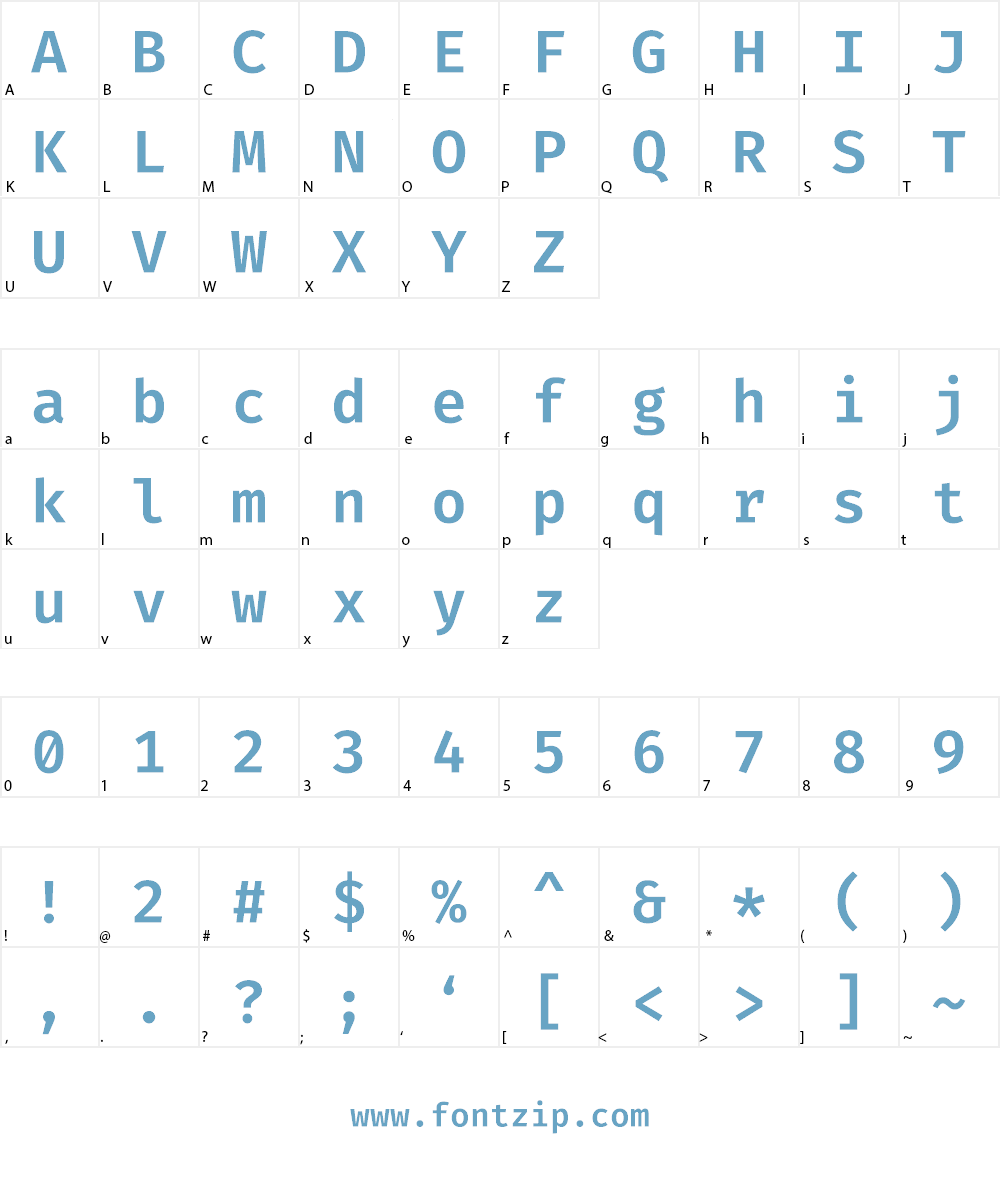
Consolate Elf is a Japanese sans-serif Monospaced font made by combining Fira Code and M Outline Fonts.
The font's title is a pun of the name of the theme of stage 2 entitled Lunate Elf, which is from the Touhou Project game, Embodiment of Scarlet Devil.